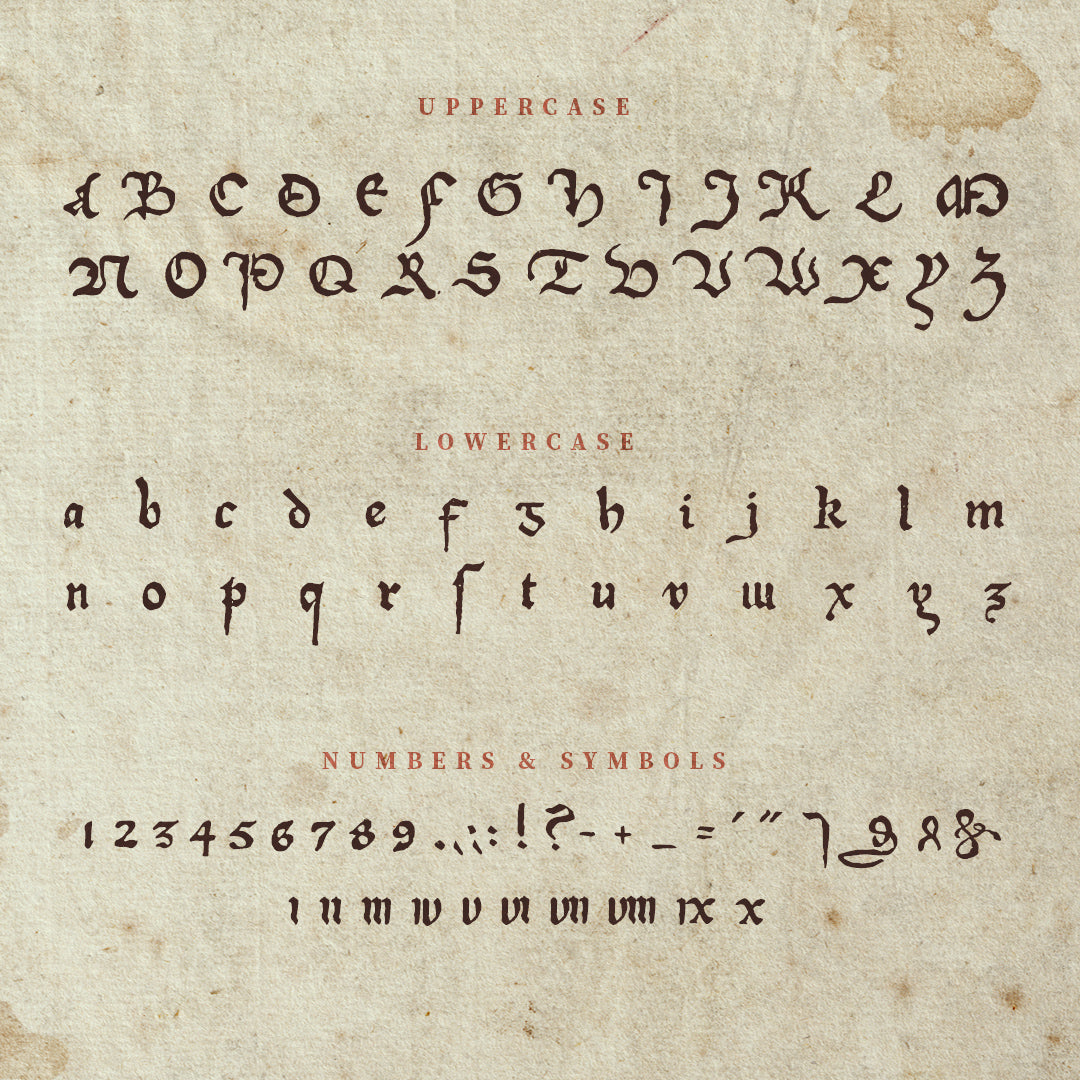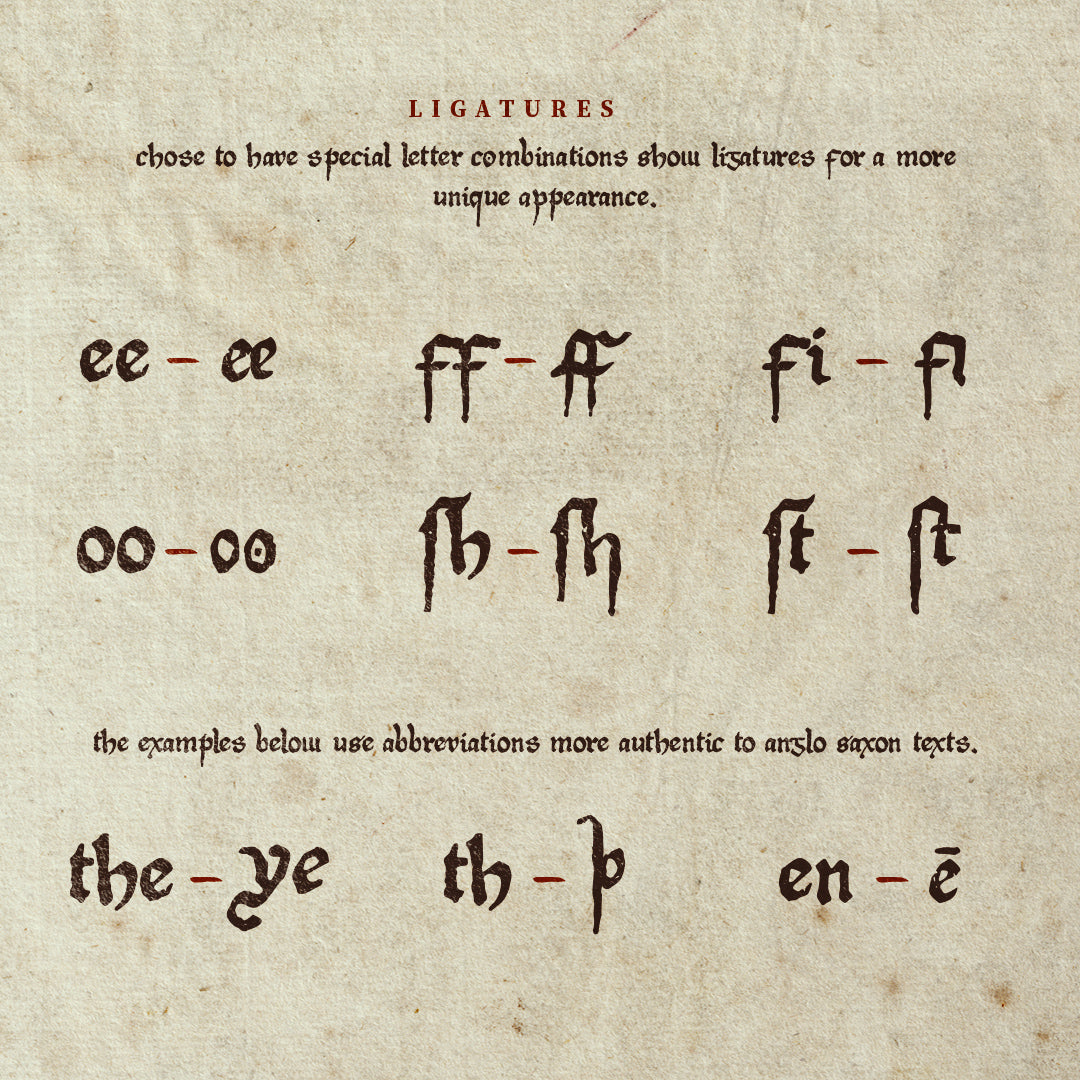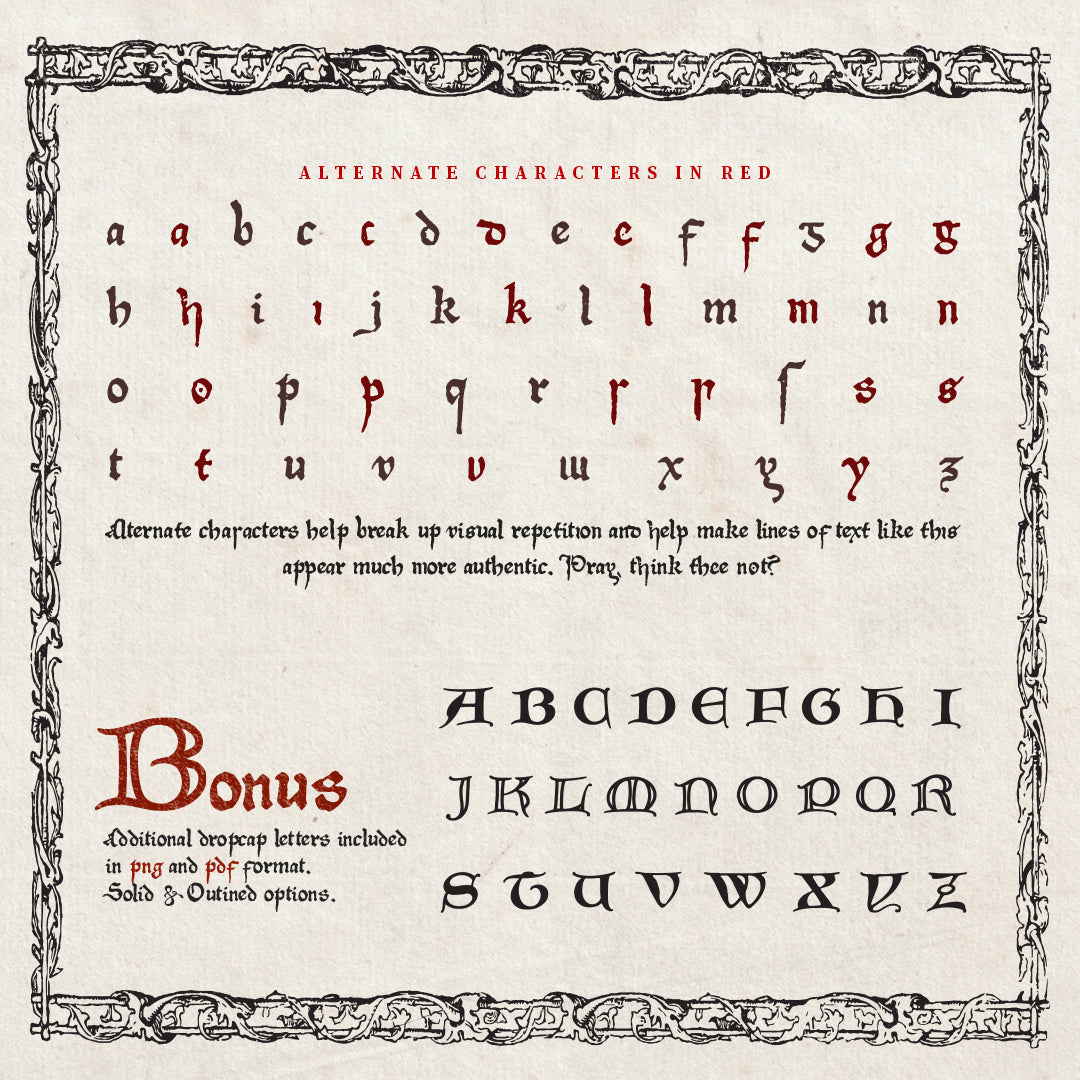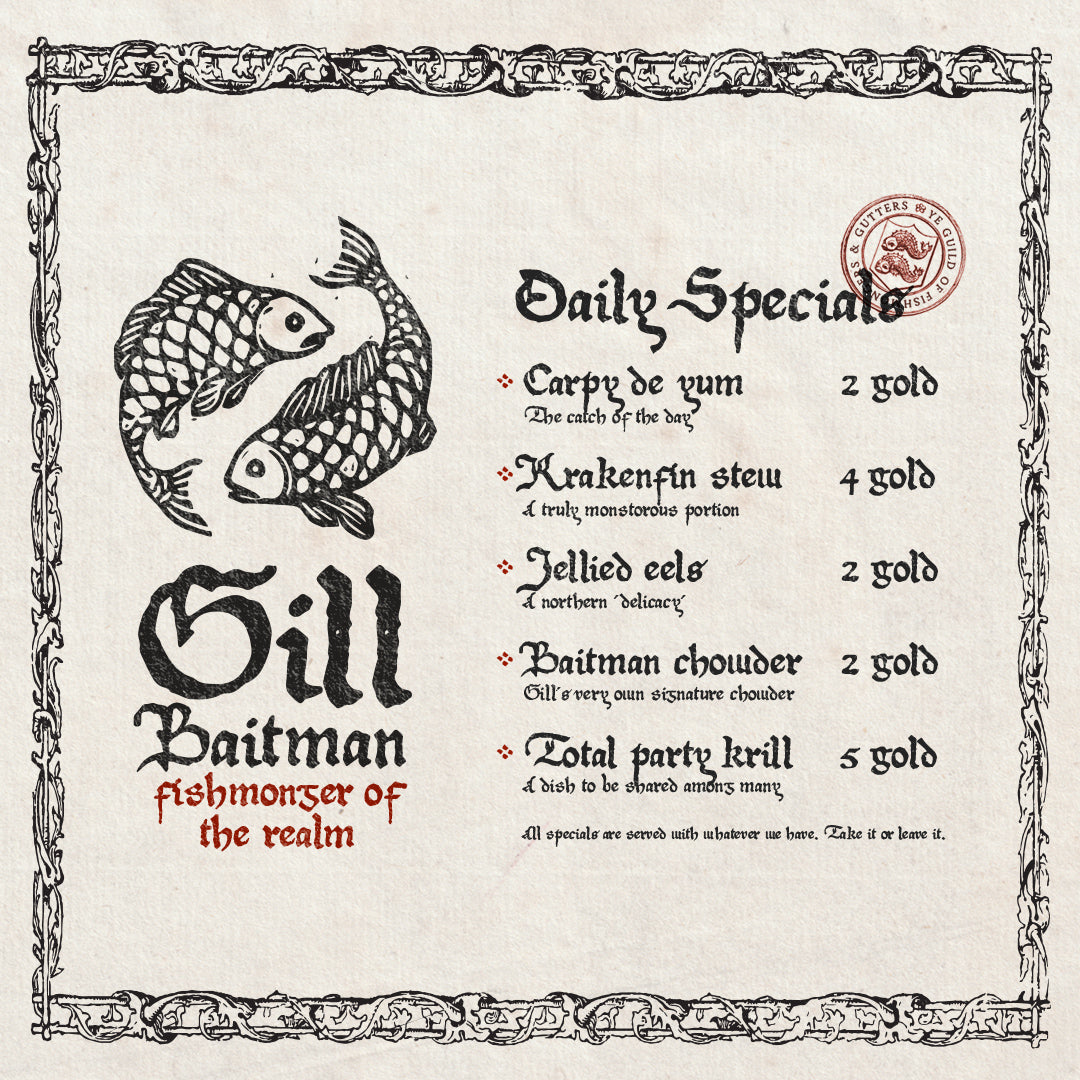
Medi Aevi Font
Medi Aevi is a medieval script font shaped by the gothic, handwritten texts of the middle ages; a typeface crafted for Dungeon Masters, authors, and graphic designers who want their handouts, maps, and creative projects to feel authentically ancient. It is ideal for recreating old manuscripts, ransom notes, dark warning letters, vintage invitations, and royal decrees meant to look as though they have survived centuries of dust and candlelight.
To accompany the main script, Medi Aevi also features a dedicated drop cap font in two distinct variants, Solid and Outlined. These drop caps are additionally supplied as individual high-resolution graphics, allowing you to integrate them seamlessly into decorative layouts, illuminated book pages, or ornate title designs.
- Full Alternates: The font includes full uppercase and lowercase character sets, along with a rich range of built-in lowercase alternates for organic text variety.
Beyond the realm of TTRPG
Medi Aevi is a versatile typography bundle designed to capture the exact look of hand-inked monastic records and epic legends. It is the perfect typographic choice for:
- Tabletop RPGs and LARP Props: Authentic royal proclamations, ancient library documents, cursed grimoire pages, player handouts, and campaign lore sheets for systems like D&D, Pathfinder, or Warhammer.
- Fantasy Novels and Book Design: Ornate chapter openers using the included drop caps, high-fantasy book covers, interior map labels, and medieval-themed promotional graphics.
- Real-World Graphic Design: Equally suited to gothic wedding stationery, historical branding, historical apparel design, and any creative layout that calls for a touch of medieval age.